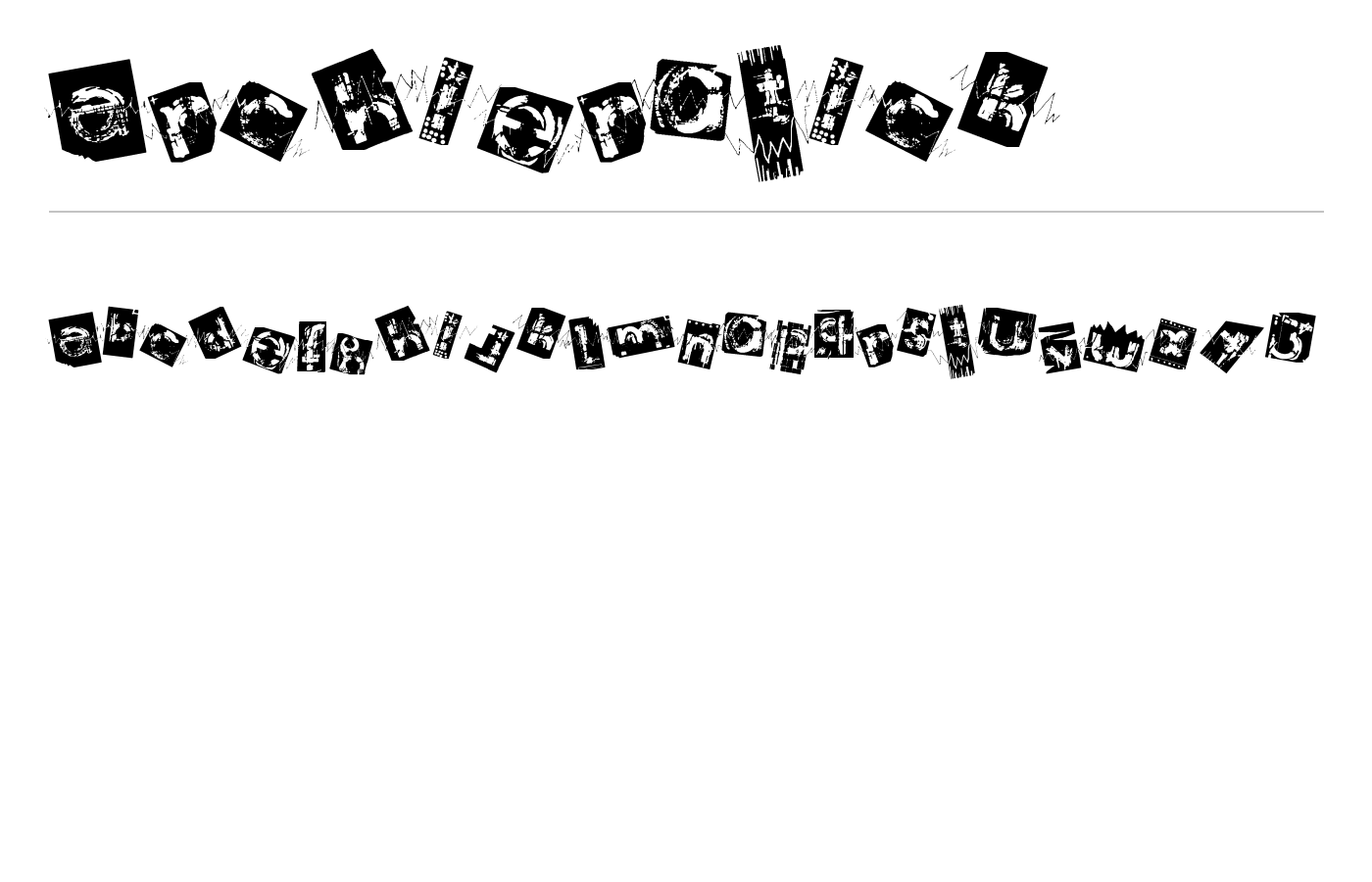
Archierotick is a bold, decorative display font with a playful, chaotic style reminiscent of ransom note lettering. Its irregular, distressed letterforms and uneven arrangement give it an edgy, rebellious personality that works well for eye-catching headlines, posters, and creative branding where a quirky, unconventional look is desired. This font is perfect for projects seeking a sense of energetic, handcrafted expression rather than traditional readability.
archierotick Font
About archierotick Font